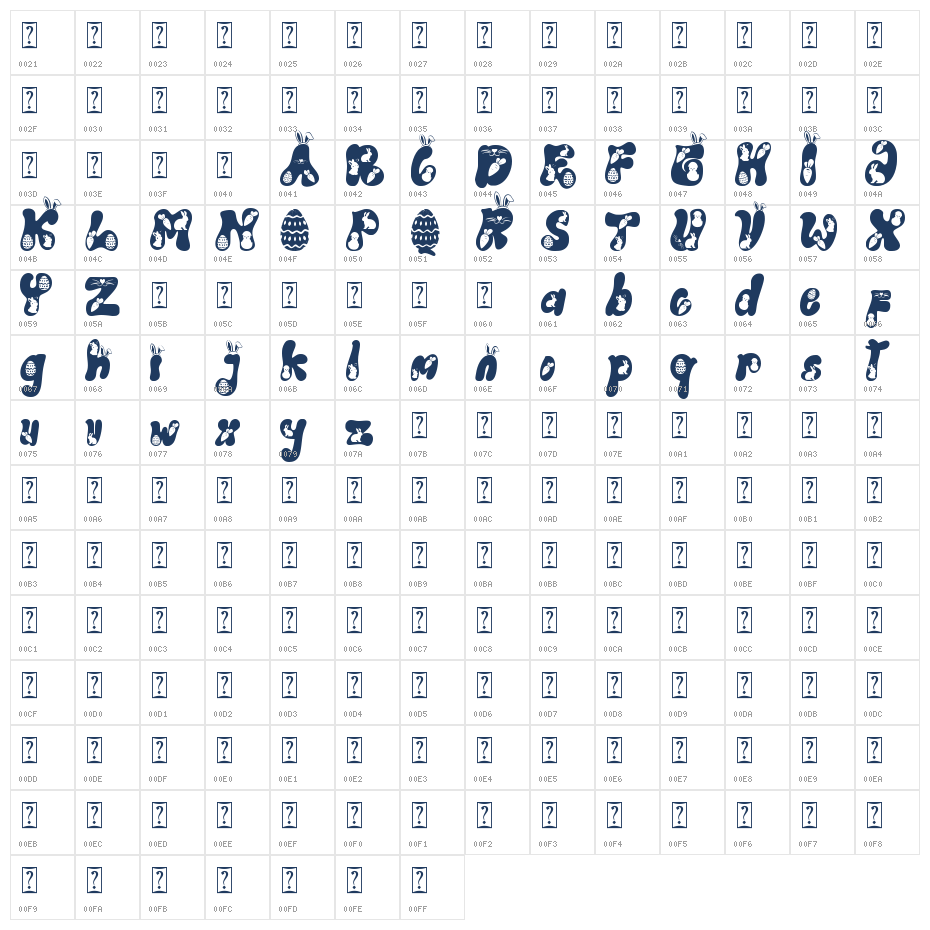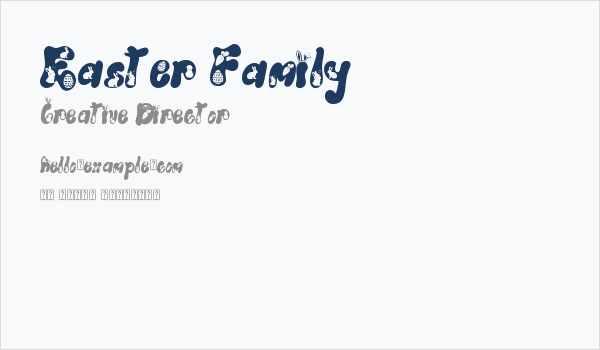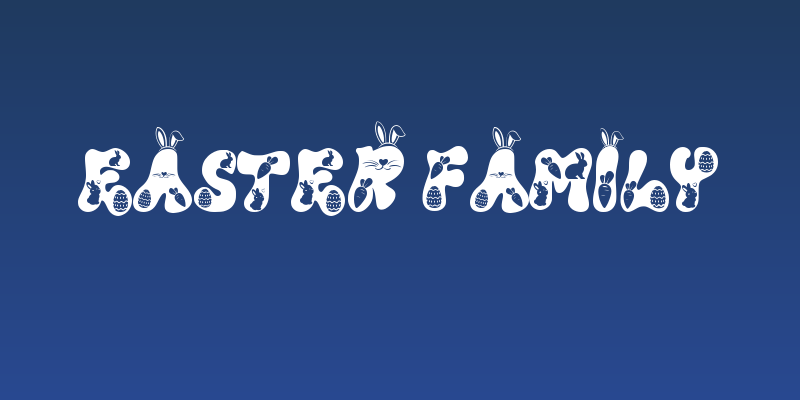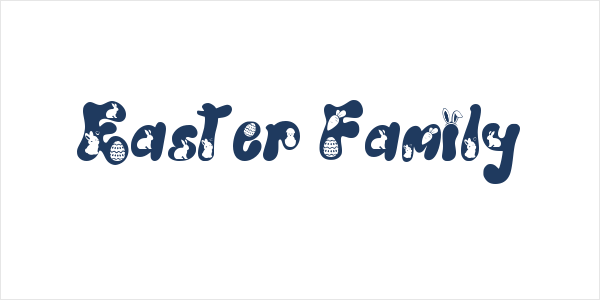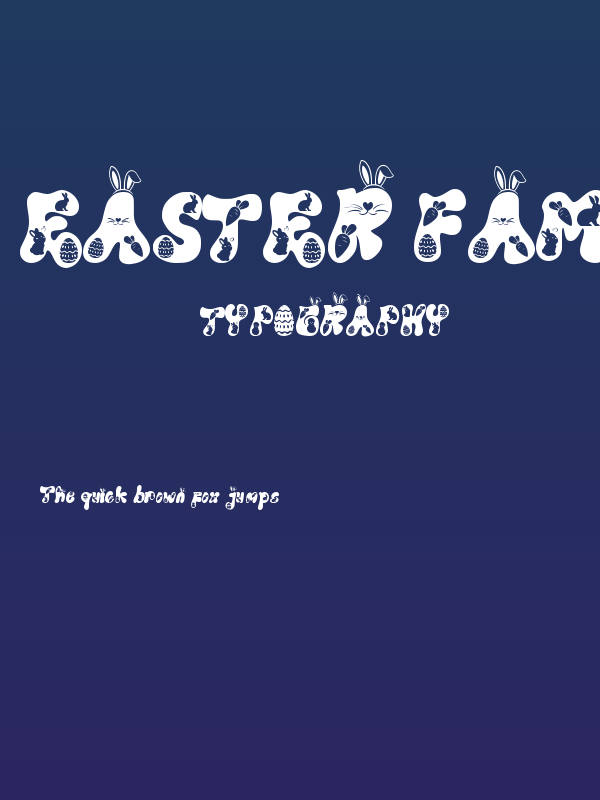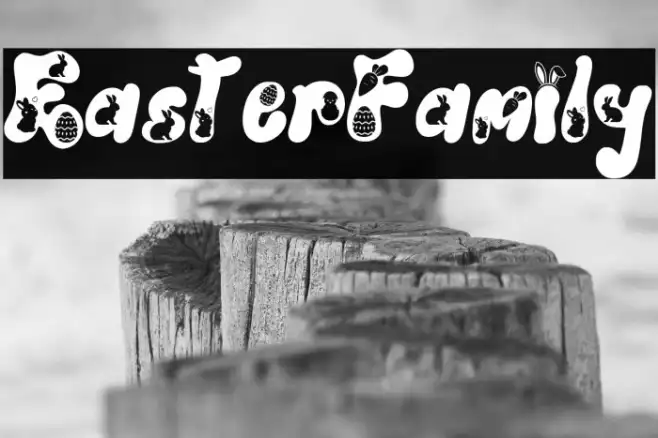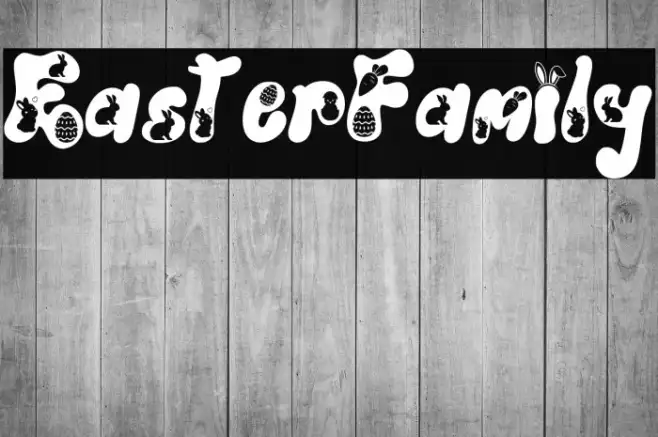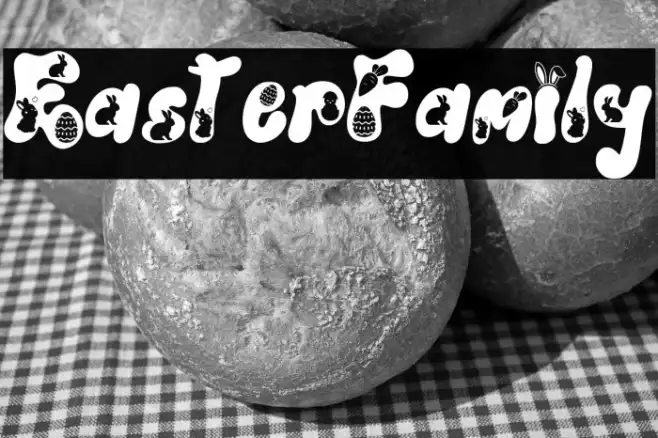
Easter Family Font
Easter Family Description
A playful, decorative font featuring Easter-themed elements such as bunnies, eggs, and chicks integrated into the letterforms, with a bold, rounded style.
| Overall Style | Playful, Festive, Whimsical |
| Use Case | Headlines, Posters, Invitations, Logos |